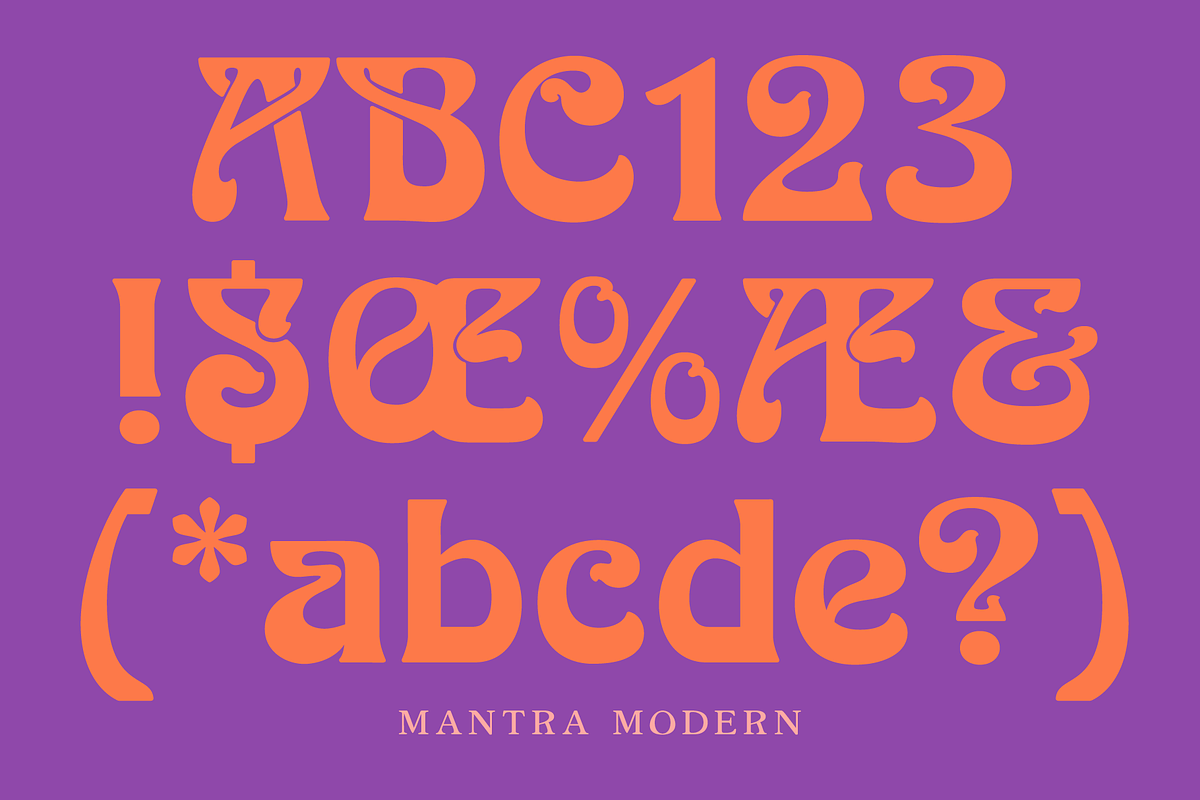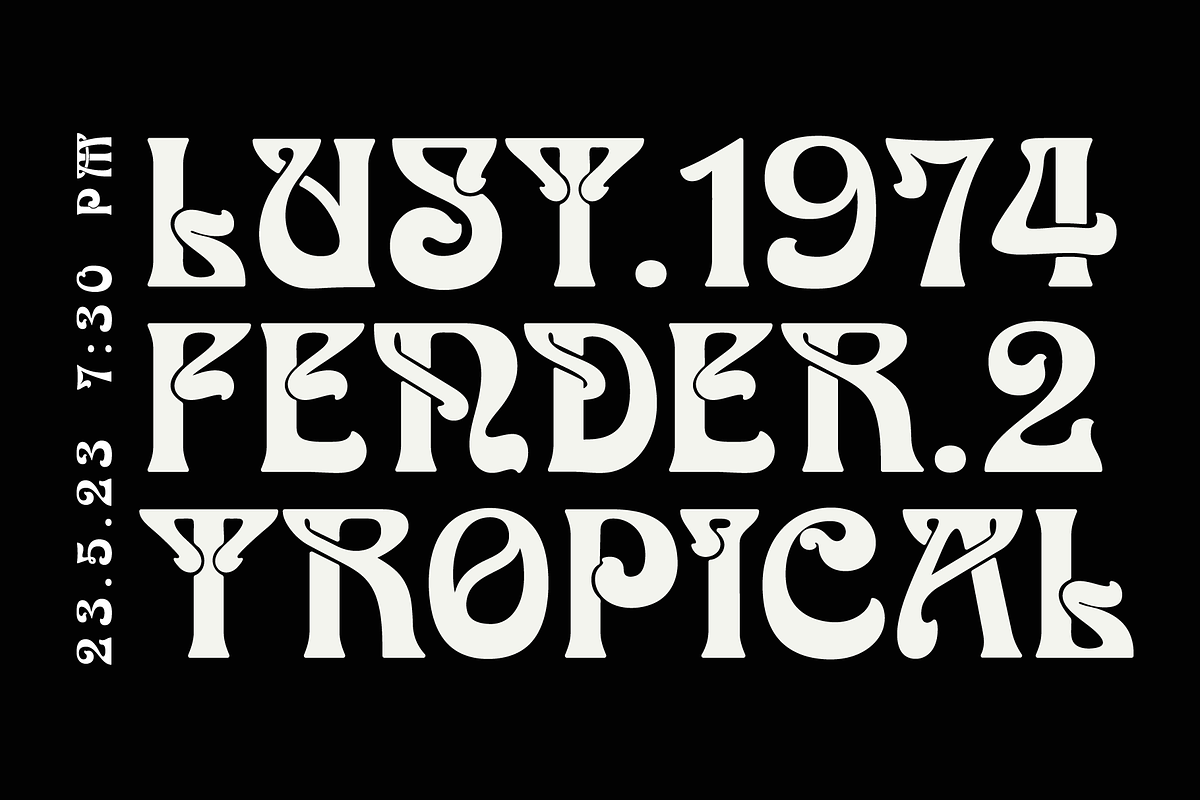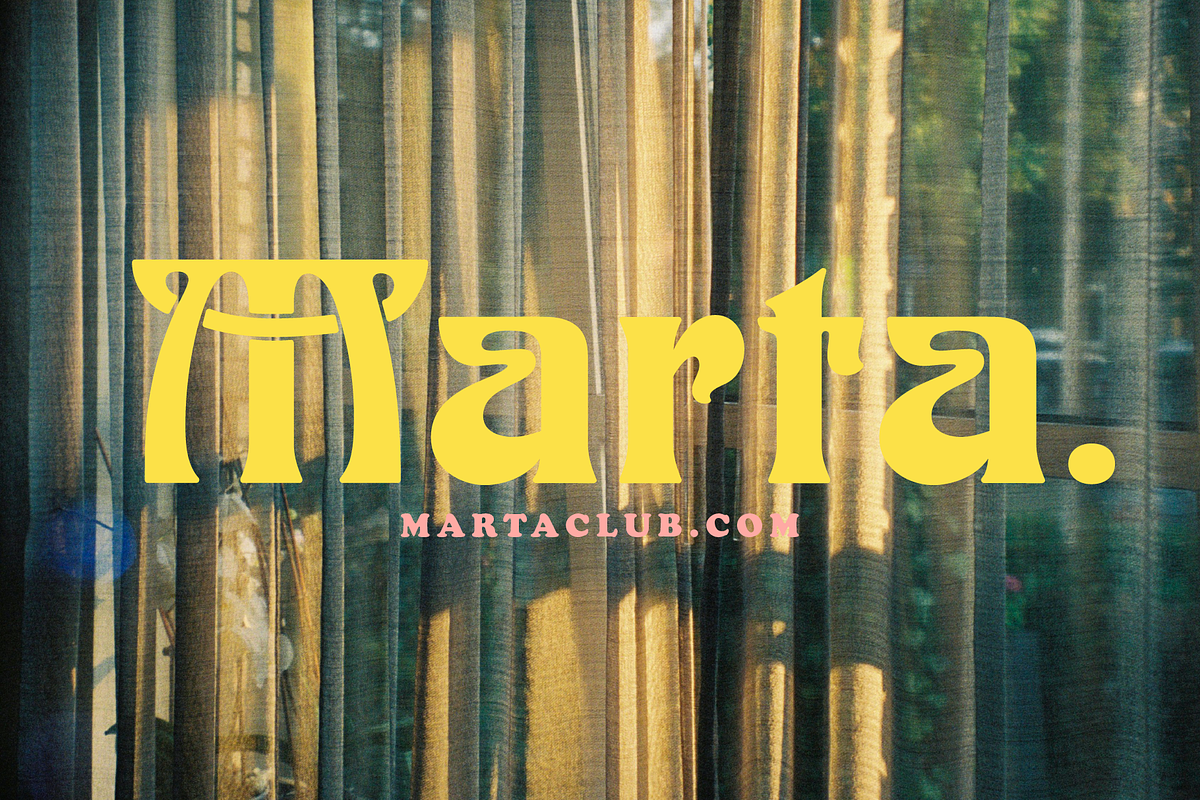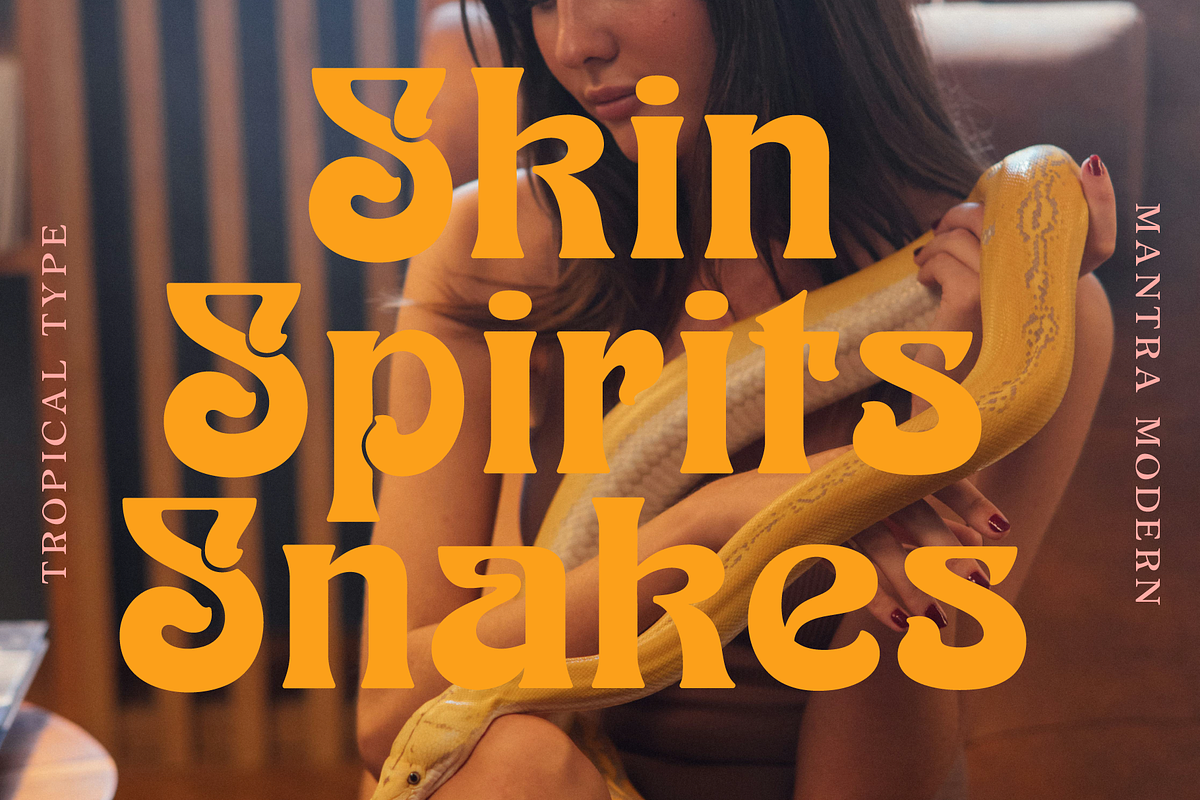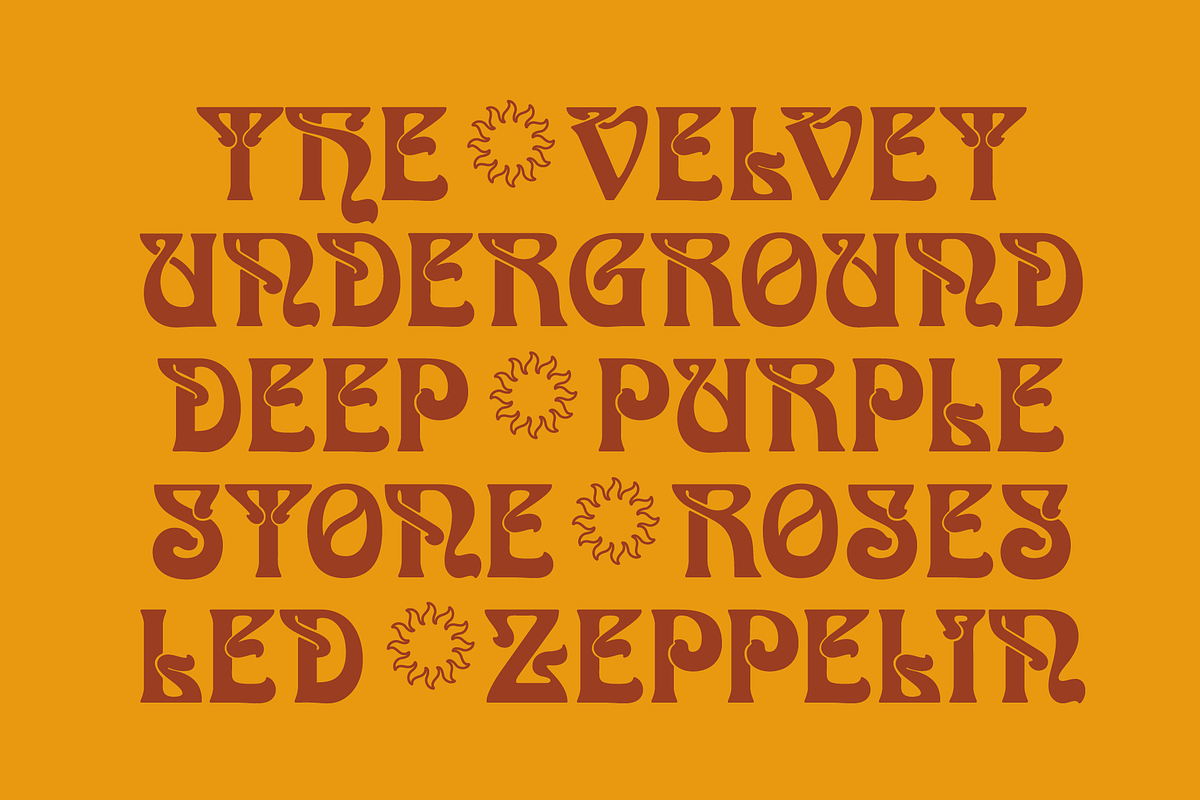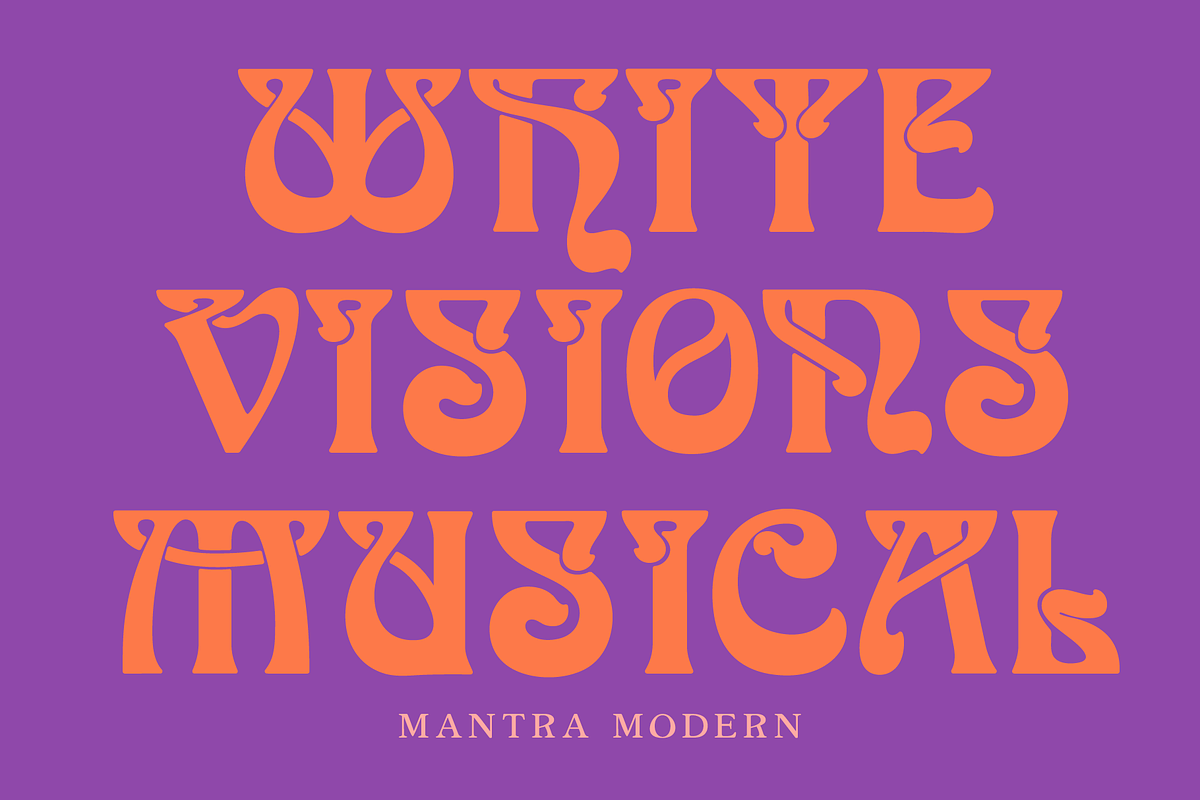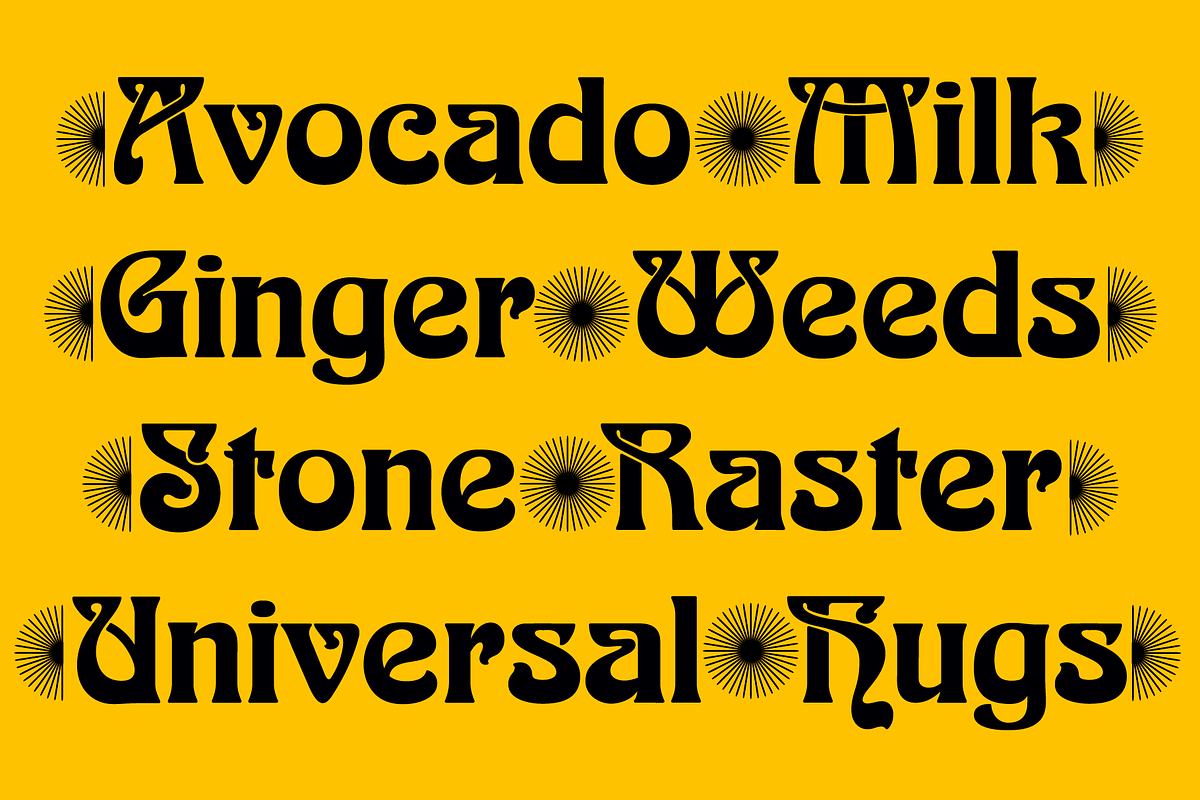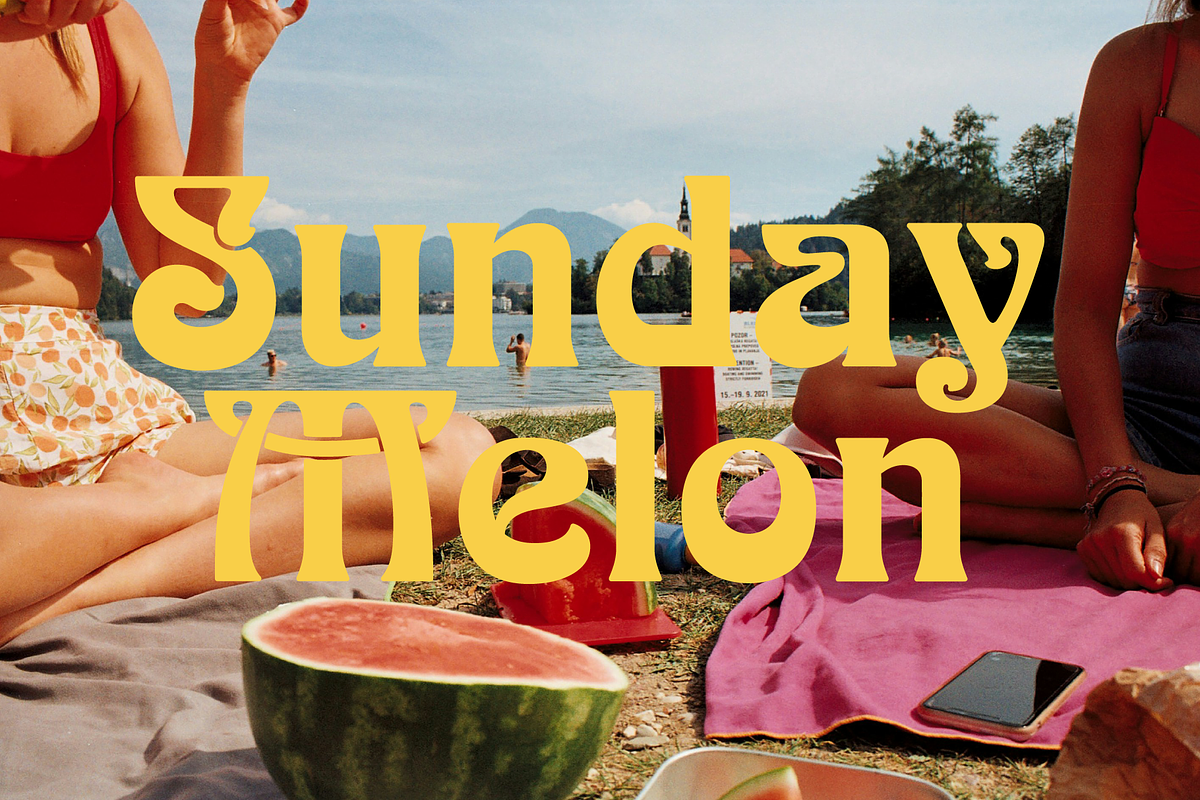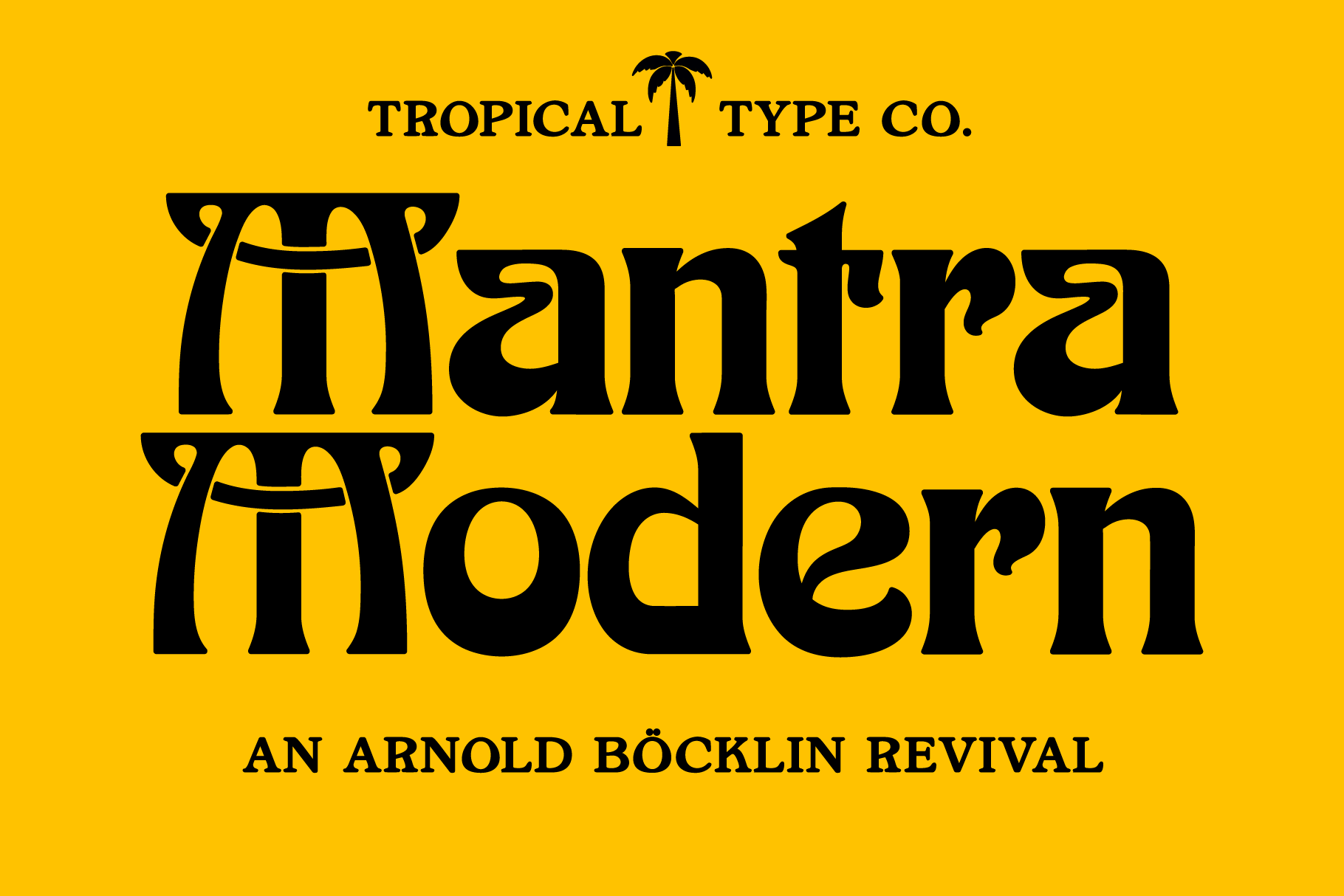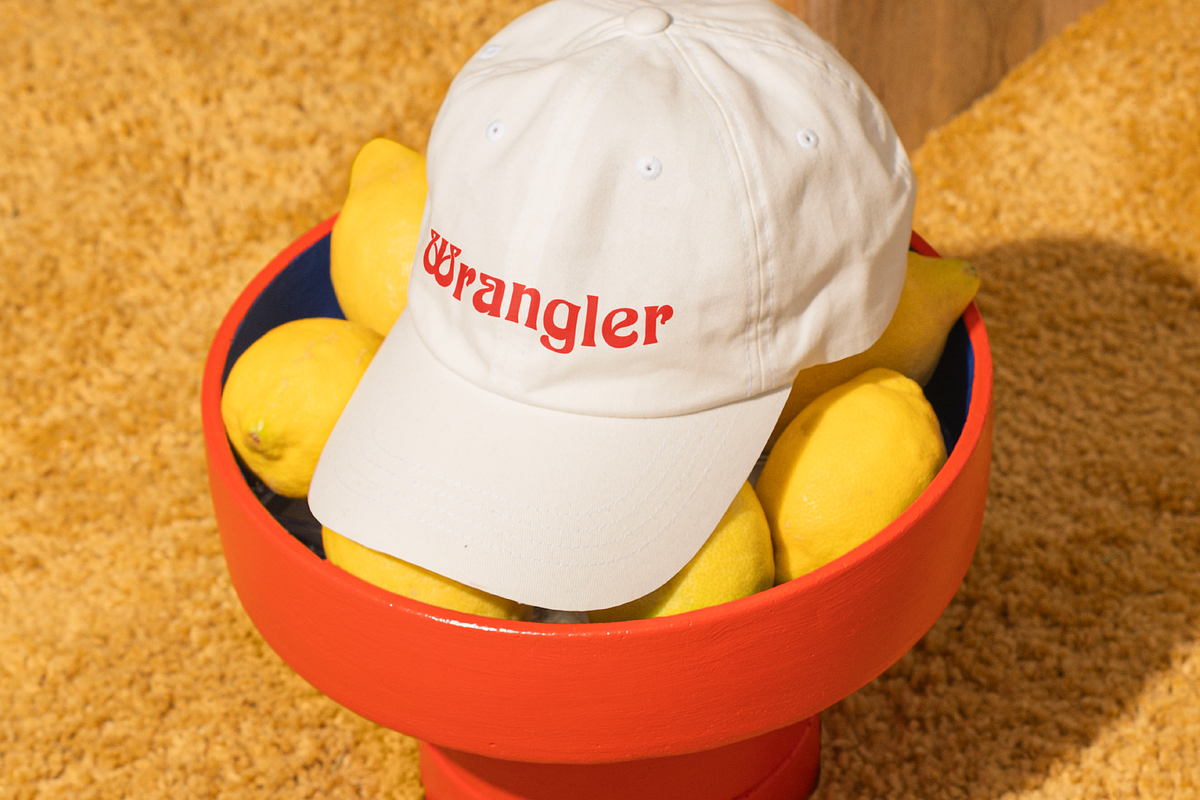
Mantra Modern - Revival Font
In 1904, a German guy created an Art Nouveau typeface named after a Swiss painter who died in 1901. However, Arnold Böcklin (both the font name and the painter’s name) really made its name in the 1970s psychedelic movement and has since been synonymous with the hippy era.
The original digitization is pretty rough and wonky, so I've decided to give it the Tropical Type touch and modernize it slightly with some different serifs and characters.
Mantra Modern is that trippy, hippy font that instantly oozes nostalgia. Give it a whirl if you’re into that kind of thing.